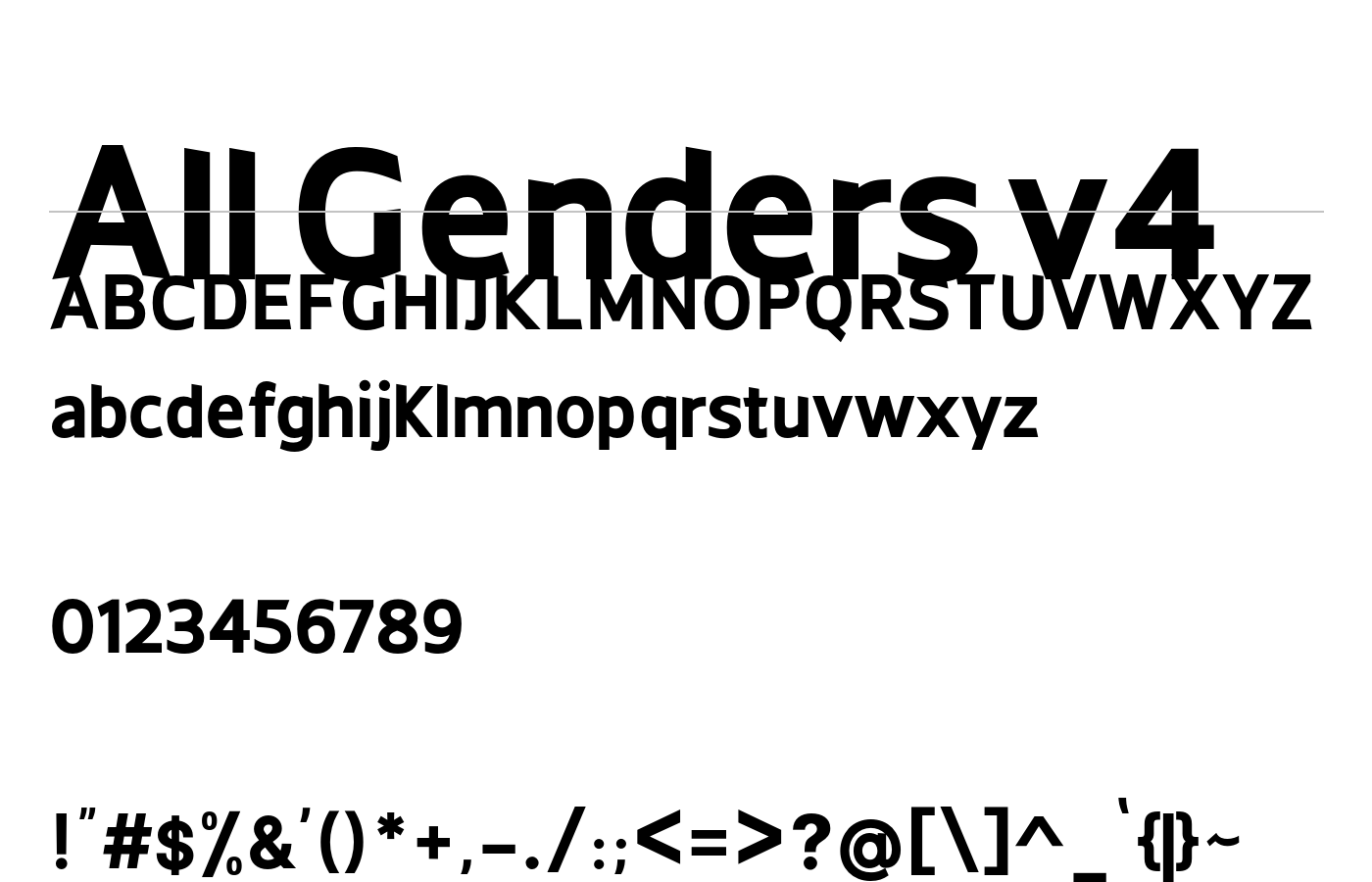
All Genders v4 is a bold, sans serif typeface characterized by its clean, modern lines and slightly condensed width, giving it a strong and confident presence. With its high x-height and simple, geometric shapes, it is highly legible and versatile, making it ideal for contemporary branding, headlines, and digital interfaces where clarity and impact are essential. This font's straightforward style communicates professionalism and inclusivity, fitting well for diverse and forward-thinking projects.
All Genders v4 Font
About All Genders v4 Font
| Font family | All Genders v4 Font |
| Languages supported | Latin, Arabic, Symbols |
| Designer | Rassam Alawdi |